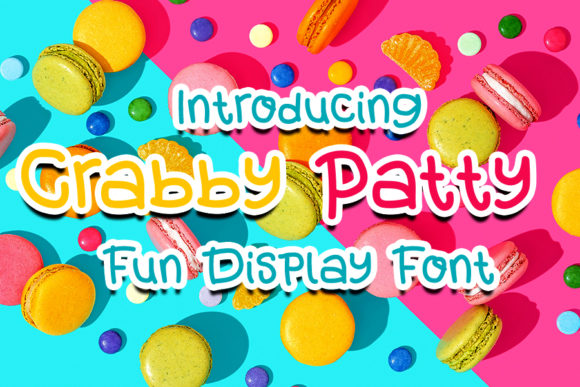
Brace yourself for the ultimate font experience with Crabby Patty, a display font that oozes charm and charisma! Specifically designed for Cricut Vinyl enthusiasts, this font is ready to transform your creative visions into captivating realities.
Immerse yourself in the world of Crabby Patty, where fun and quirkiness reign supreme. This remarkable font boasts an irresistible personality, bringing a touch of whimsy and playfulness to your projects. Its distinctive style is guaranteed to leave a lasting impression, elevating your designs to new heights.
Unleash your creativity and let Crabby Patty be your guide. With its boundless versatility, this font effortlessly adapts to a multitude of projects, from eye-catching Cricut Vinyl creations to stunning digital designs. Its playful nature adds a touch of lightheartedness to invitations, social media posts, and logos, while its readability ensures that your message is conveyed with crystal clarity.
Crafting with Crabby Patty is an absolute delight. Its carefully crafted characters flow seamlessly, ensuring effortless cutting and weeding for your Cricut Vinyl projects. The font's intricate details and smooth curves add a touch of elegance and sophistication, making your designs truly stand out.
Step into the spotlight with Crabby Patty and witness the transformation of your creative endeavors. This remarkable font will captivate your audience, leaving them in awe of your design prowess. Its unique charm and unforgettable style are sure to make your projects shine brighter than ever before.
Don't miss out on the Crabby Patty experience! Embark on a journey of creativity and let this remarkable font ignite your imagination. Its versatility, charm, and readability make it the perfect choice for Cricut Vinyl enthusiasts and design aficionados alike.